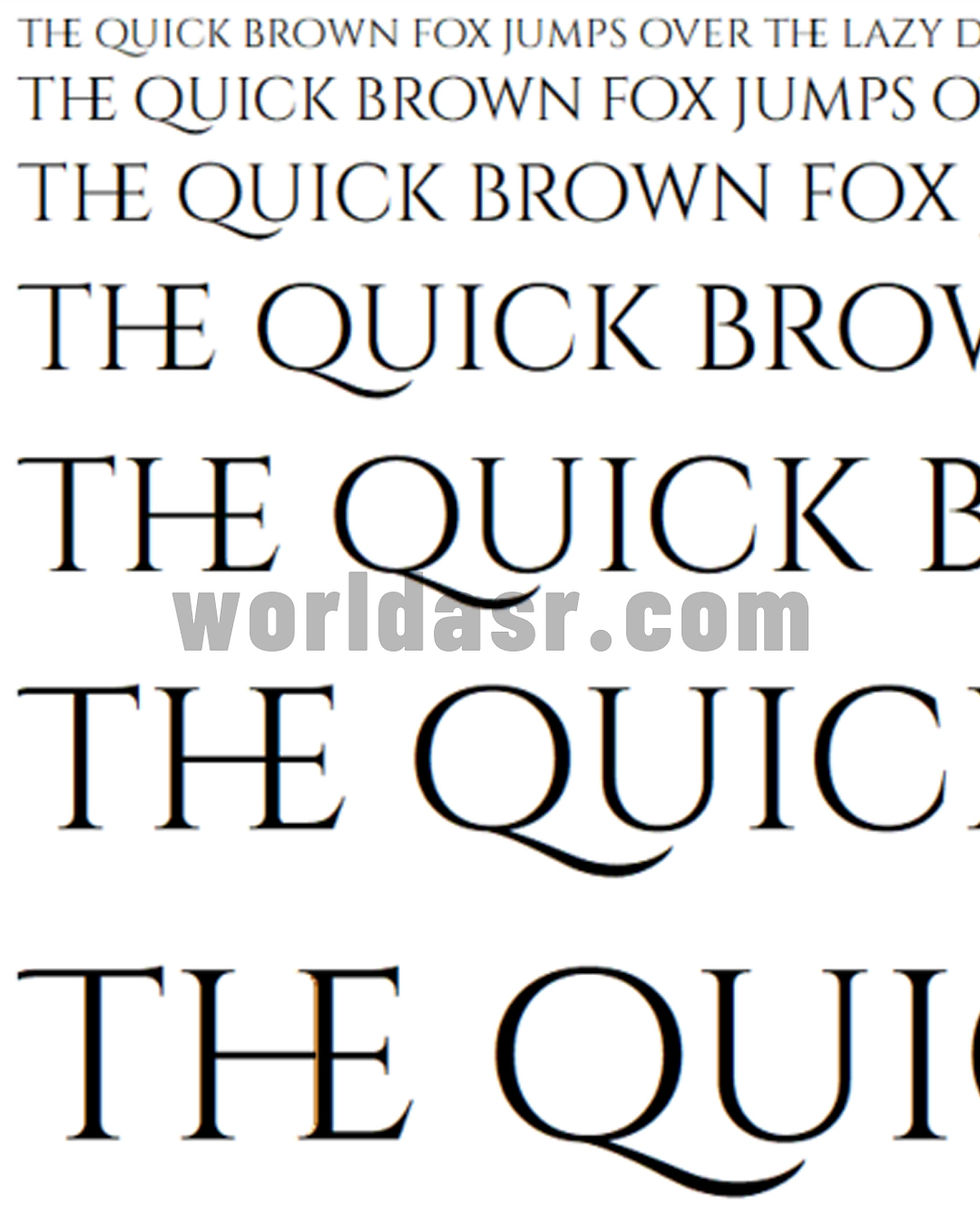
Infuse elegance and tradition into your wedding designs with our Indian Wedding Premium Fonts (Pack of 10).
This specially curated collection blends ethnic flair with modern sophistication - perfect for invitations, titles, couple logos, digital cards, and cultural event branding. Each font is crafted to reflect the richness and vibrancy of Indian celebrations.
Key Features:
🖋️ 10 Culturally Inspired Premium Fonts
🪔 Includes script, serif, and decorative Indian styles
💌 Ideal for invites, signage, branding, and rituals
Bring authenticity to every word with fonts that celebrate tradition and love in perfect harmony.